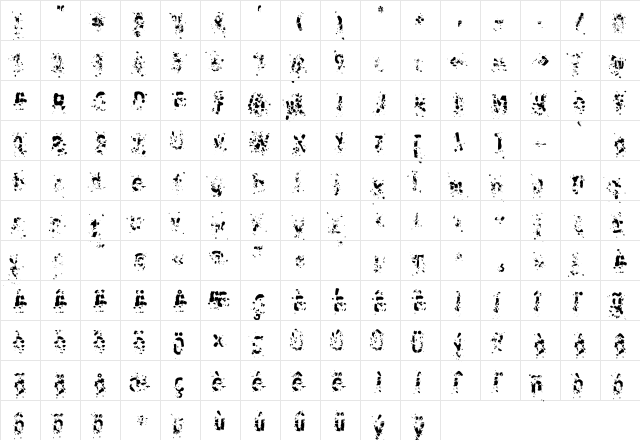
LTRussischBrot EatThree Regular
Design Context for LTRussischBrot EatThree Typeface
LTRussischBrot EatThree is a composed and adaptable typeface that performs quietly and consistently across a wide range of design contexts.